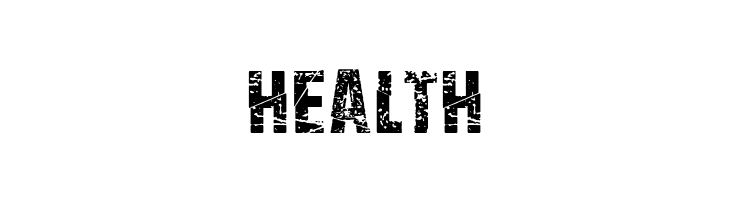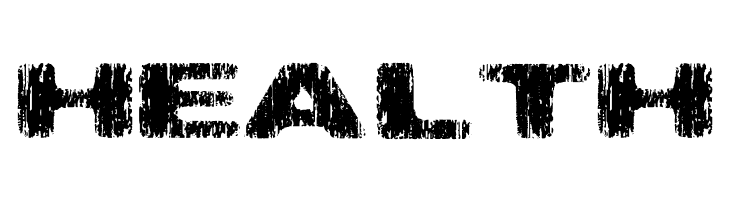
A bold, textured font with a vintage, handcrafted appearance.
A bold, distressed font with a rugged, grunge style.
A bold, distressed font with a grunge aesthetic and textured, worn appearance.
A bold, distressed font with a rugged, cracked texture.
A bold, distressed font with a rugged, vintage appearance.
A gritty, distressed font with a rugged, textured appearance.
A bold, distressed font with a rugged, handcrafted appearance.
A bold, decorative font with a textured, stone-like appearance.
A bold, distressed font with a shattered glass appearance.
A bold, geometric 3D font with a futuristic and digital aesthetic.
A playful font with characters designed to look like they are drawn on pencils.
A bold, graffiti-style font with shadowed, jagged letters.
A bold, graffiti-style font with dripping effects and shadowed, three-dimensional letters.
A distressed, textured font with a gritty, raw aesthetic.
A bold, textured font with a distressed, grunge-like style.
A bold, distressed font with a grunge texture, perfect for spooky designs.
Distressed, bold stencil font with a grunge, military-inspired look.
Distressed, bold stencil font with a grungy, military-inspired look.